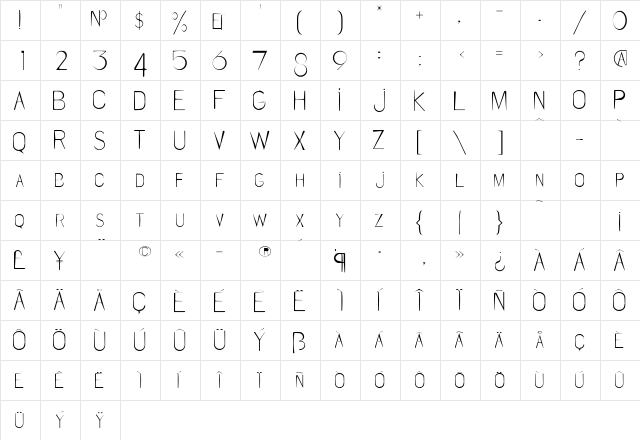
CleanCut-Caps Roman
Design Context for CleanCut-Caps Typeface
CleanCut-Caps offers clean, dependable letterforms without strong stylistic allegiance, making it a practical choice for designers who need flexibility.
Pro Tip: Use CleanCut-Caps in both headline and body roles to test its range before committing to a single application.